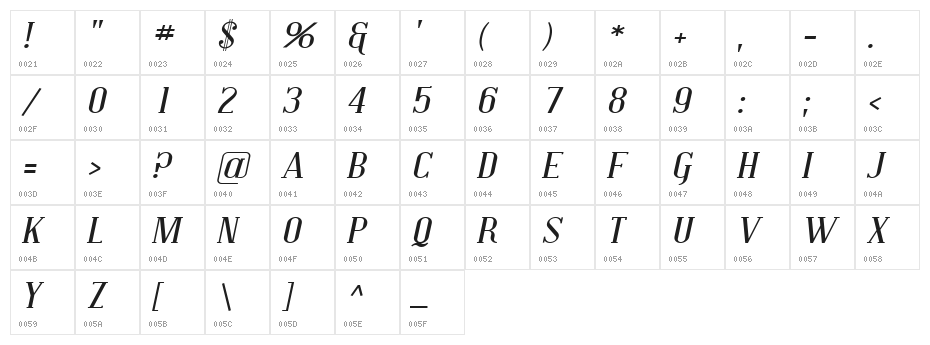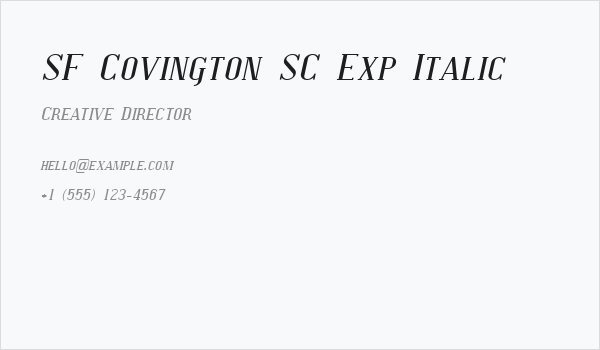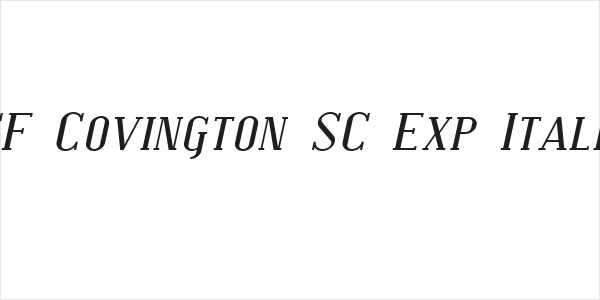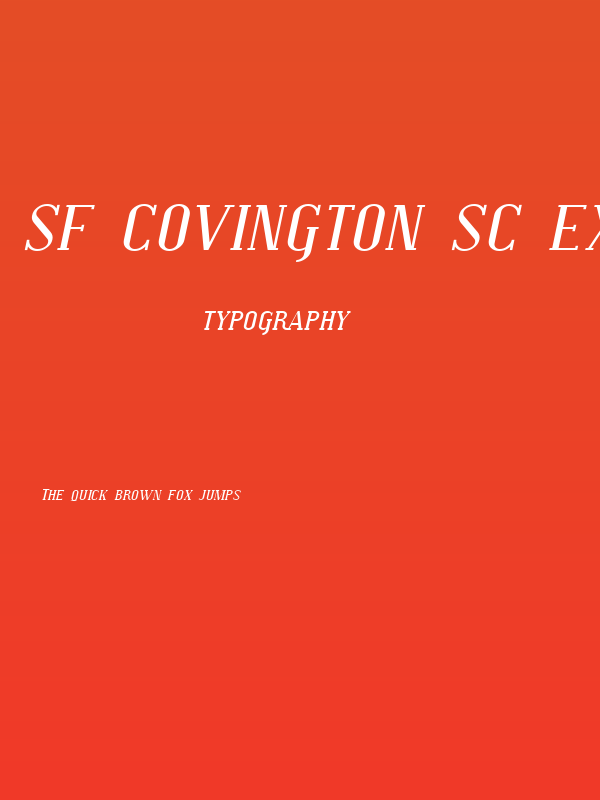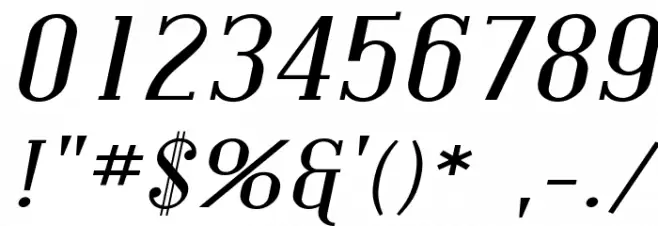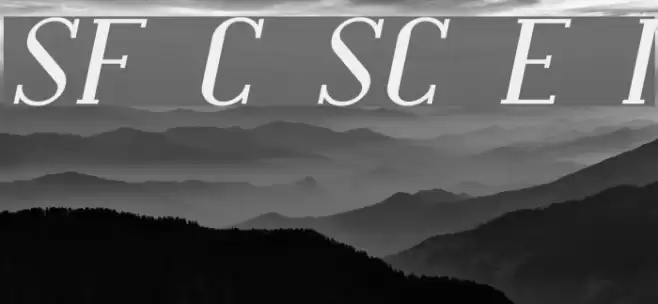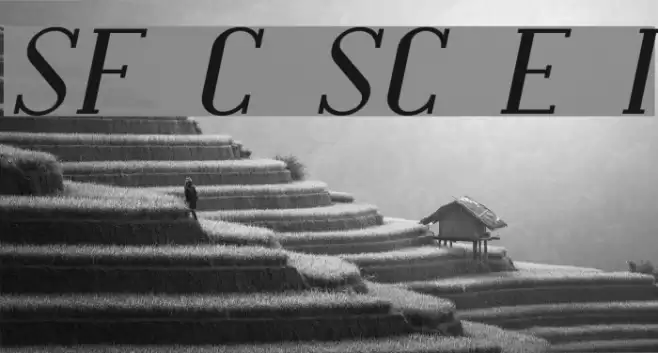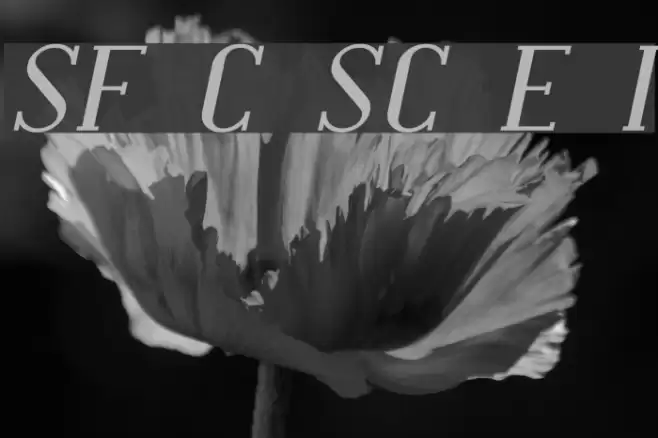
SF Covington SC Exp Italic Font
This font features a sophisticated and elegant style with a distinct italic slant, giving it a dynamic and fluid appearance. The characters are slightly expanded, providing a sense of openness and readability. The strokes are moderately thick, offering a medium contrast that enhances the clarity of each letter. The serifs are sharp and pronounced, adding a touch of classic refinement. This font is well-suited for projects that require a blend of traditional elegance and modern flair. Its versatility makes it ideal for both digital and print media, ensuring it stands out in various applications.
| Use Case | Headlines, Logos, Editorial design |
| Proposed Projects | Ideal for luxury branding, editorial design, invitations, and sophisticated advertising. |